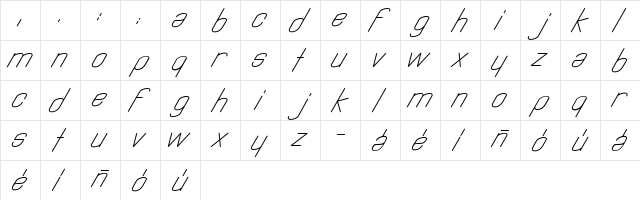
Astralia Medium Free Font
Astralia Medium
Astralia Family
Design Context for Astralia
Astralia is a composed and adaptable typeface that performs quietly and consistently across a wide range of design contexts.